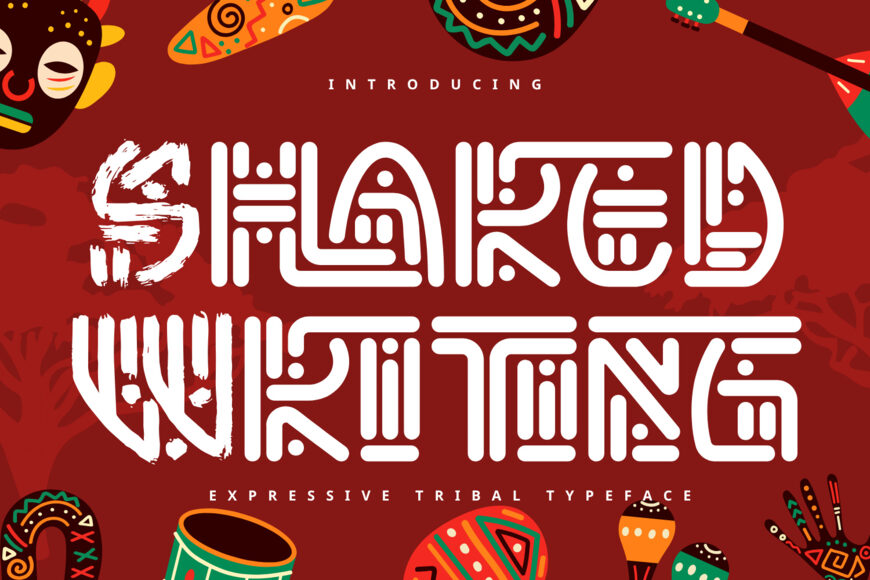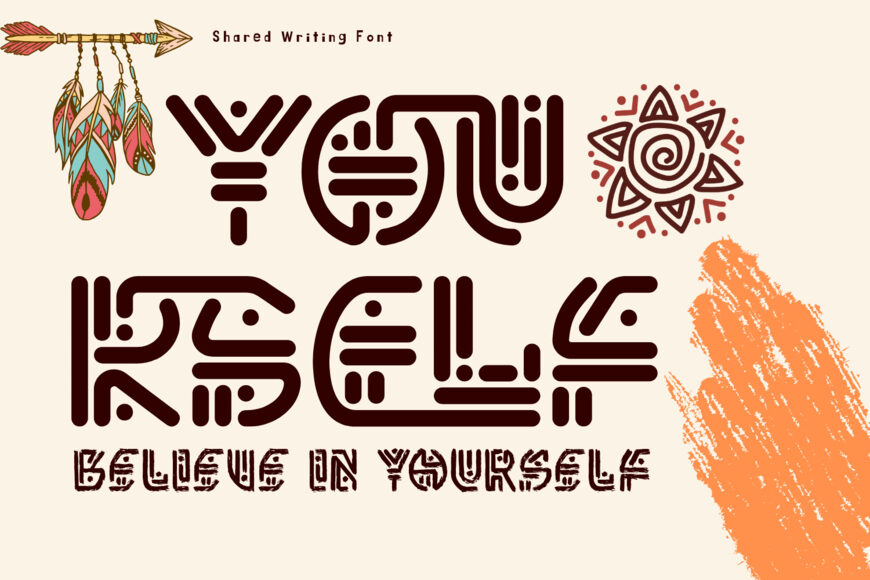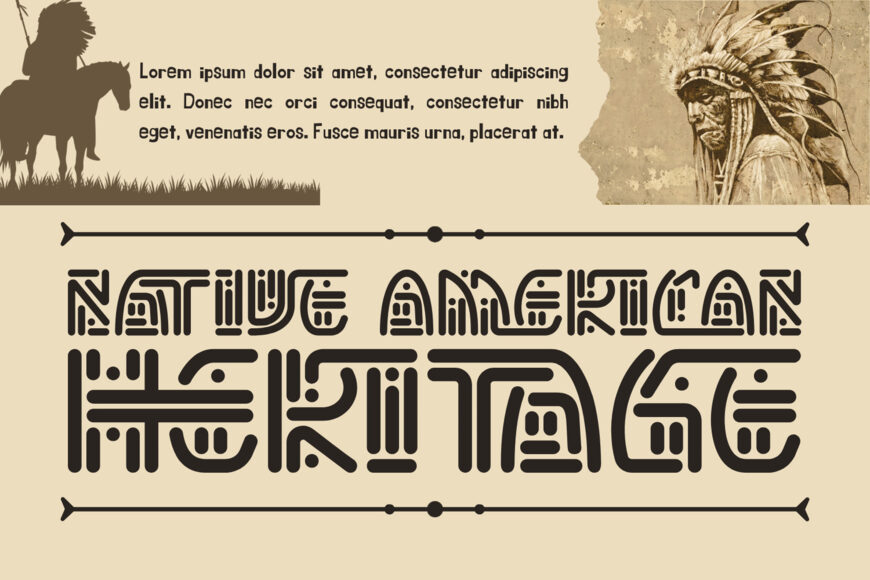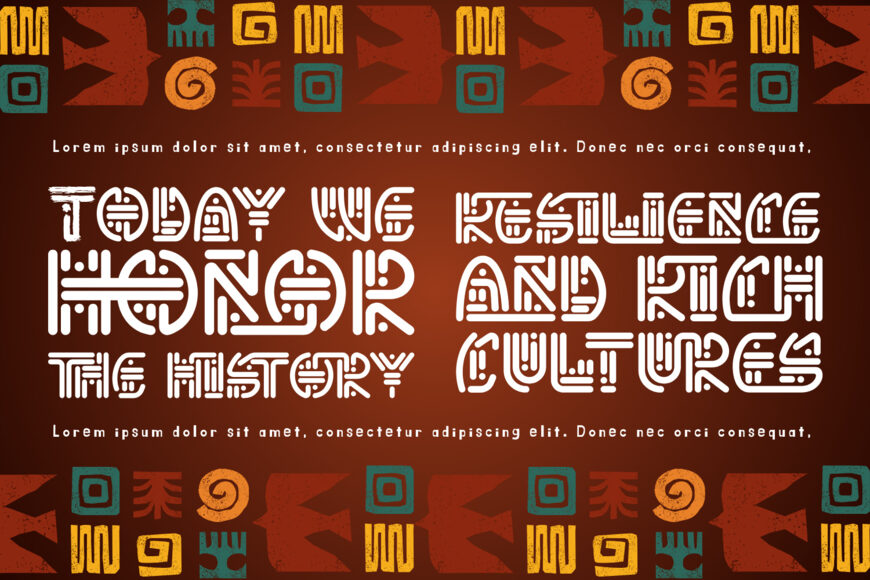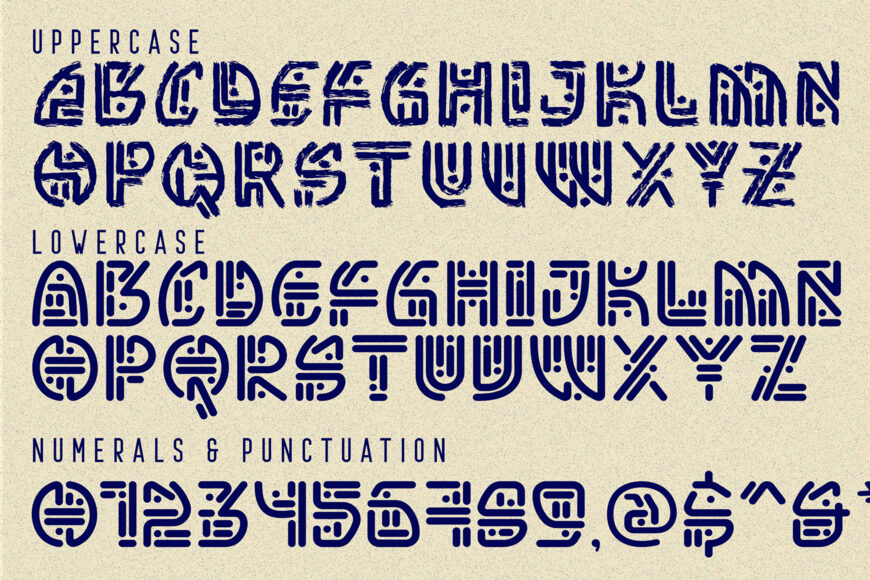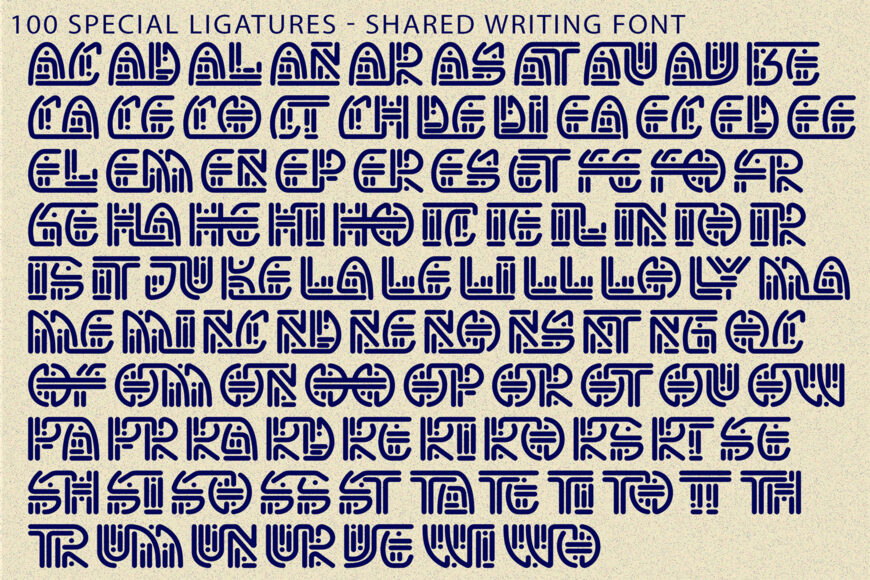
Shared Writing Font
Shared Writing is a captivating ethnic display font inspired by traditional African woven patterns, ancient geometric mazes, and tribal folk art. Built with smooth rounded monoline paths, intricate interlocking corridors, and embedded inline dot accents, this typeface brings an authentic cultural rhythm and handcrafted heritage to your visual designs.
Featuring raw, brush-textured alternate letterforms juxtaposed against clean geometric maze structures, Shared Writing allows designers to construct visually rich, rhythmically engaging headlines. It is the definitive display choice for world music festival posters, Afrobeat album art, organic coffee and cocoa packaging, ethno-fashion branding, eco-tourism logos, and cultural documentary titles.